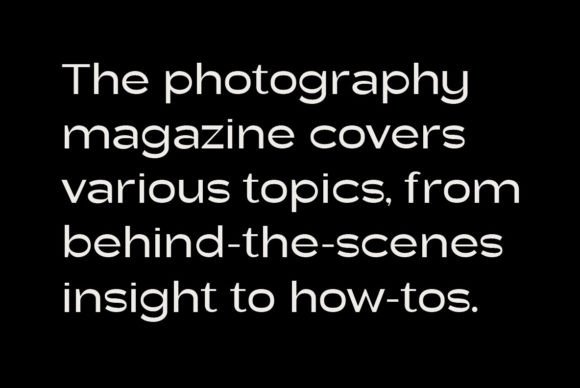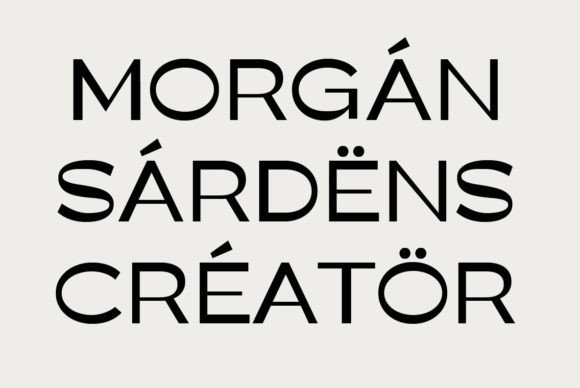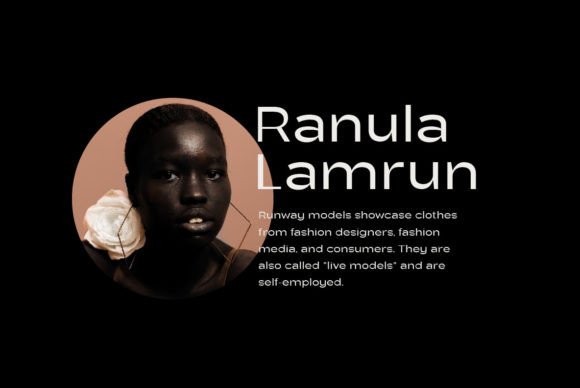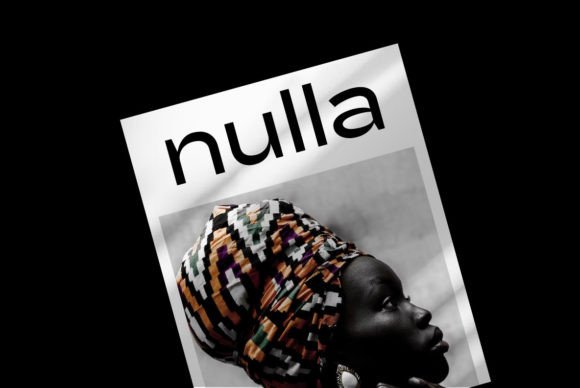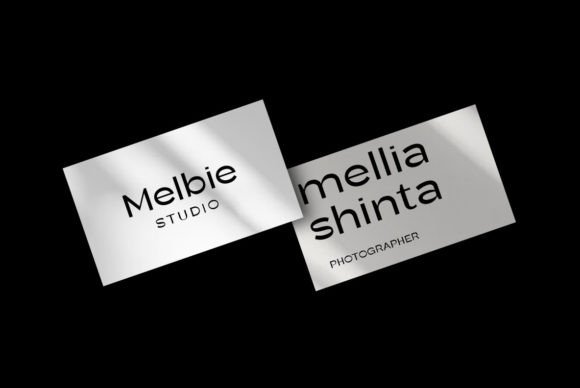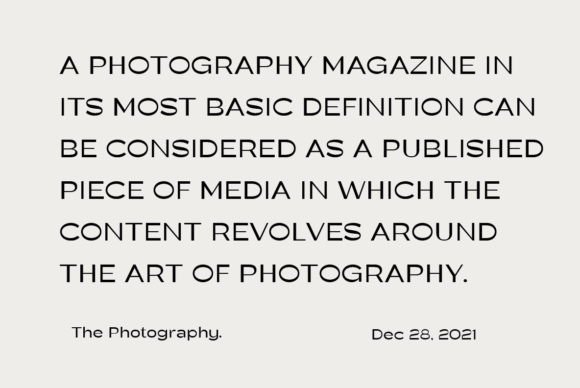
Introduction to New Gerbil Font
Have you ever been in the middle of a creative project, staring at a blank page or screen, and suddenly a font pops into your mind that perfectly captures the essence of your idea? For designers, this moment is pure magic. It’s the spark that ignites the entire design process, and it’s what makes all the hard work worth it. For many, that font is the New Gerbil Font – a cool and modern sans serif font that’s been making waves in the design community.
As a valuable design resource, the New Gerbil Font is a go-to choice for designers who want to create high-quality, contemporary designs with a transparent background. Its simplicity and versatility make it perfect for branding, web design, editorial, and advertising projects. And the best part? It’s available for a free download, making it accessible to designers of all levels.
Key Features of New Gerbil Font
- Unique and playful design, ideal for creative projects and design resources.
- High-resolution fonts (300 DPI) for crisp and clear display.
- Transparent background option for easy customization and layering.
- Designed to be highly legible, making it an excellent choice for body text and headings.
Honest Review: New Gerbil Font
I recently had the chance to try out the New Gerbil Font, and I’m excited to share my honest thoughts on this design resource. As a designer, I’m always on the lookout for high-quality fonts that can elevate my creative projects.
- ✨ The font is fully scalable, making it ideal for use in logos, headings, and body text.
- ✨ The design is modern and sleek, with a fun and playful feel that’s perfect for creative projects.
- ⚠️ The font is only available in a limited range of weights, which might not be suitable for all design projects.
- ⚠️ The font doesn’t include any expert or condensed versions, which might limit its use in certain design contexts.
Overall, I’m really impressed with the New Gerbil Font. While it has some limitations, it’s a great addition to any designer’s toolkit, especially for creative projects that require a fun and modern feel. And the best part? It’s available for free download, making it a fantastic resource for designers on a budget.
The New Gerbil Font is a unique and creative design resource ideal for a variety of projects. Its transparent background makes it perfect for overlaying text on images, while its high-quality design ensures a professional finish.
For optimal results, use the New Gerbil Font in conjunction with a high-contrast background to make your text stand out. Experiment with different font sizes and styles to find the perfect combination for your project.
The New Gerbil Font is ideal for:
- Brand identity design
- Web design projects
Alternatives to New Gerbil Font
Gerbil Sans
Gerbil Sans is a versatile and modern sans-serif font ideal for a wide range of creative projects, from graphic design to digital art. Its clean lines and transparent background make it a perfect choice for designs that require a touch of sophistication. Available for free download, Gerbil Sans is a high-quality alternative to New Gerbil Font.
When to use: Suitable for corporate branding, product packaging, and digital interfaces.
Comparison: Gerbil Sans offers a more refined look compared to New Gerbil Font, with a focus on legibility and consistency.
Serifio
Serifio is a elegant serif font designed for designers who seek a classic and sophisticated look for their creative project. Its high quality and transparent background make it a perfect choice for designs that require a touch of luxury. Available for free download, Serifio is an excellent alternative to New Gerbil Font.
When to use: Suitable for publishing, advertising, and fine art prints.
Comparison: Serifio has a more traditional feel compared to New Gerbil Font, with a focus on historical accuracy and craftsmanship.